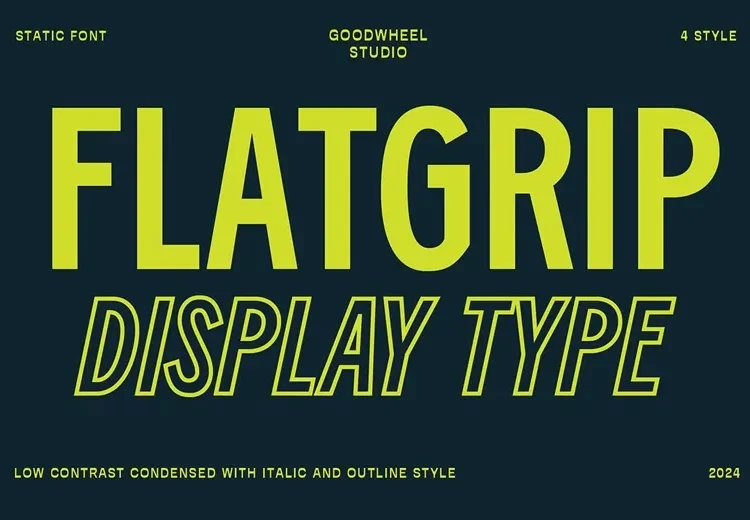
GW Flatgrip Font
GW Flatgrip is a contemporary Sans Serif font that blends classic and modern design elements seamlessly. Featuring strong, defined lines, this font is ideal for making bold statements in your designs. Its striking appearance ensures that your message is clear, while its easily recognizable style helps your work stand out from the crowd.
Whether you’re working on logos, branding, or headlines, GW Flatgrip adds a unique touch to any project, making it an excellent choice for those who want their designs to make an impact.